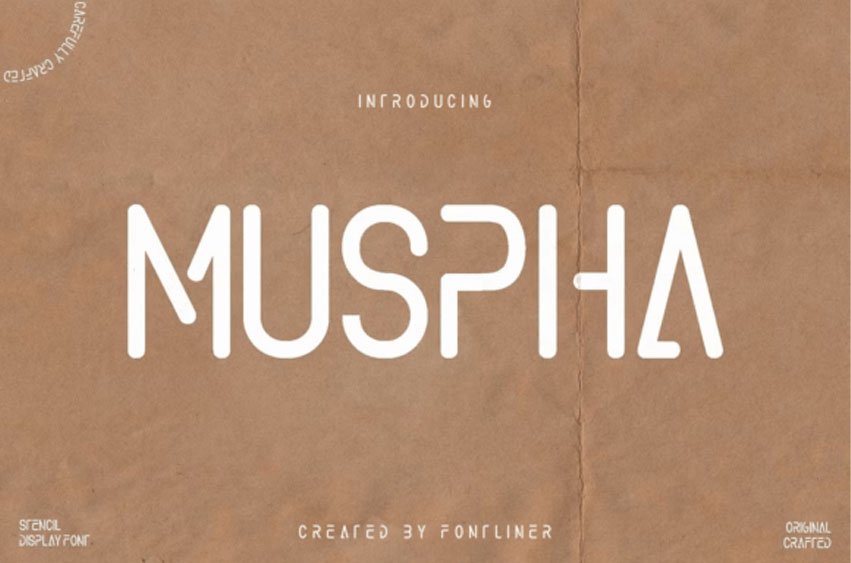
Muspha Font is a bold, stencil display font with a modern, futuristic aesthetic. Its geometric design and sharp lines make it ideal for branding, packaging, posters, and headlines.
Whether you’re creating industrial-inspired graphics or minimalist designs, Muspha adds a sleek and contemporary edge to any project.